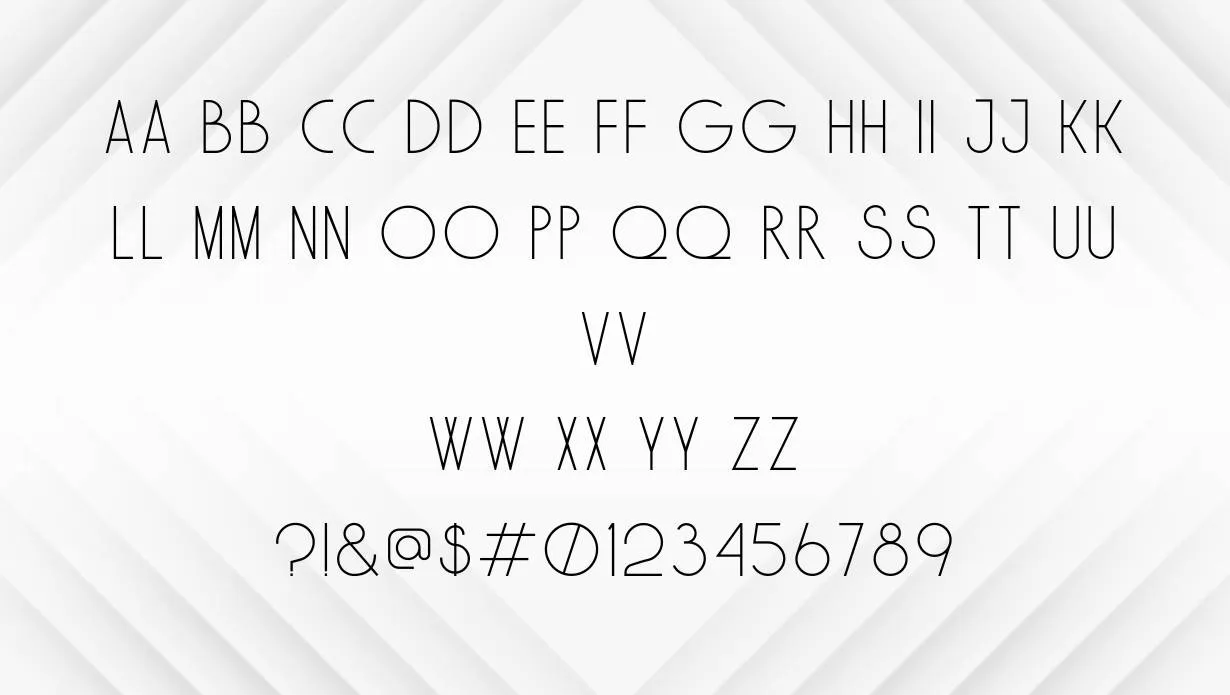
Solo Font is a modern and stylish typeface known for its sleek and contemporary design. Its clean lines and simple yet bold appearance make it ideal for logos, branding, and minimalist layouts.
| Name | Solo Font |
| Designer | Hellmut G. Bomm |